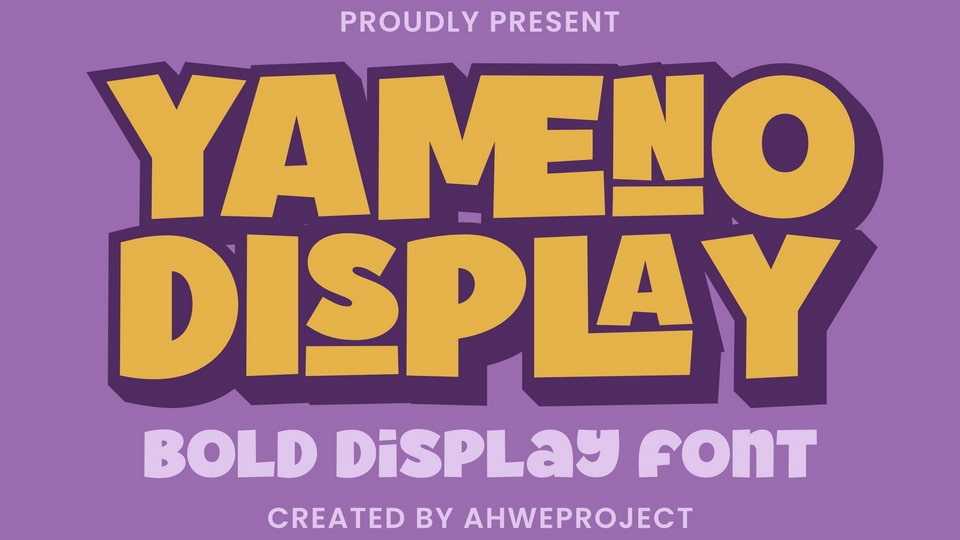
Download Yameno font, a bold display typeface designed to have a fun touch to any design. Its bold letterforms are perfect for titles, headlines, branding and any design that needs appeal.